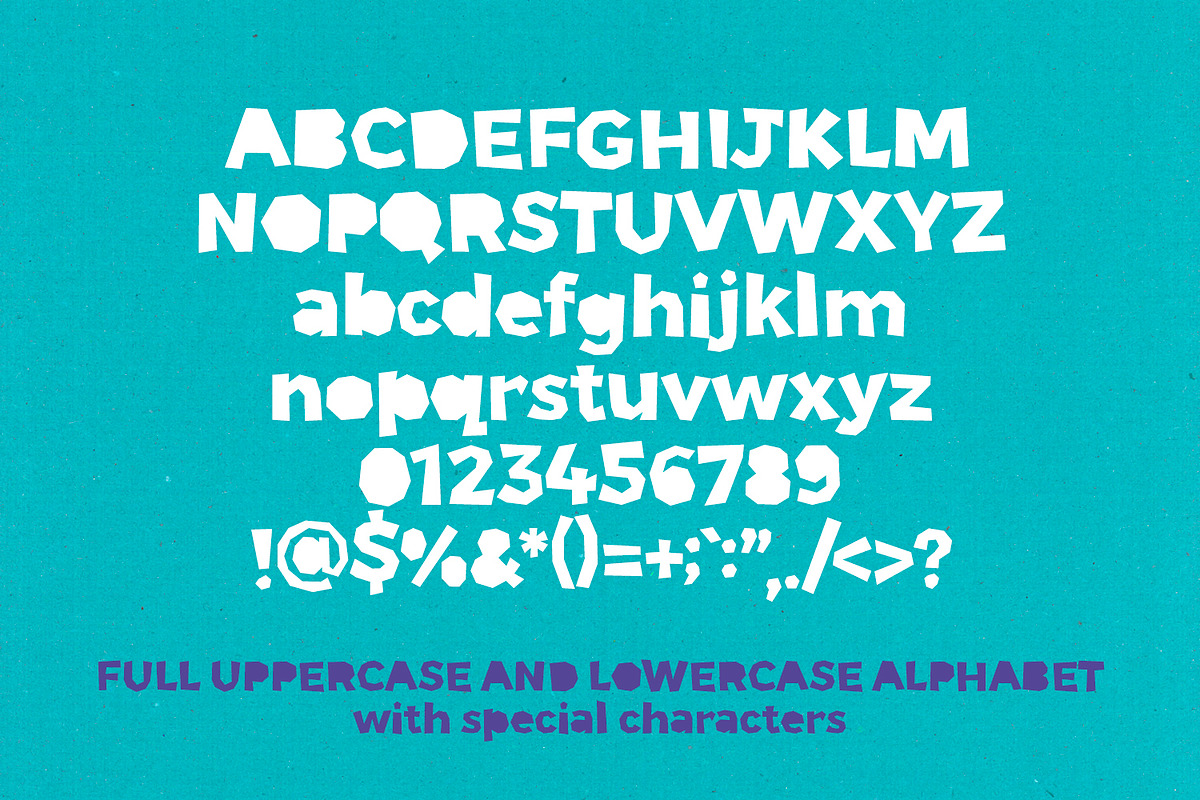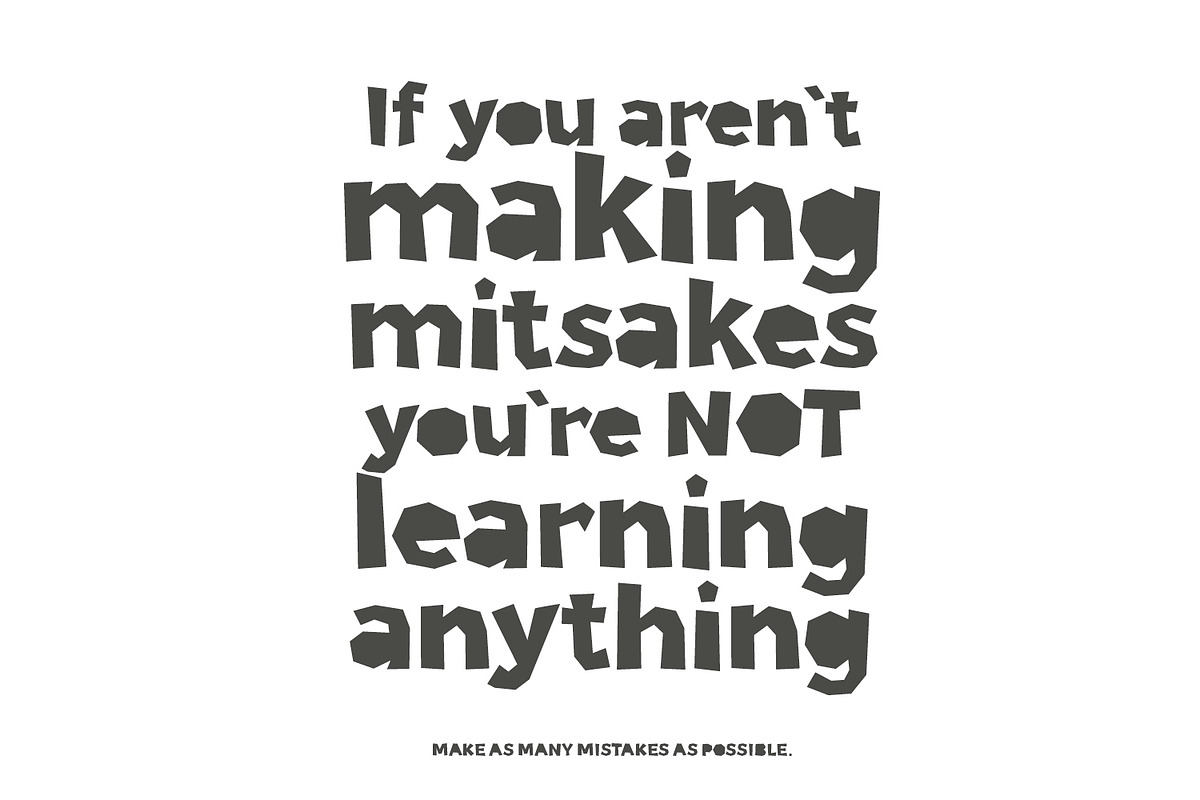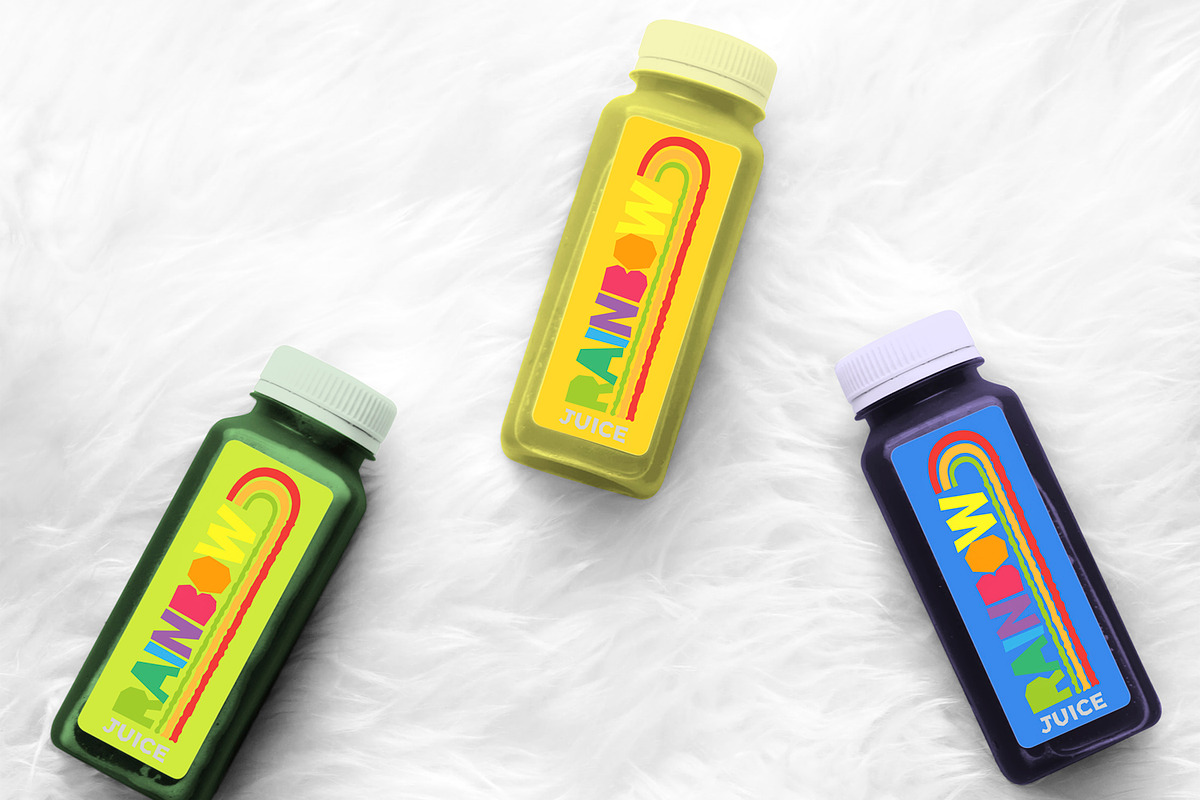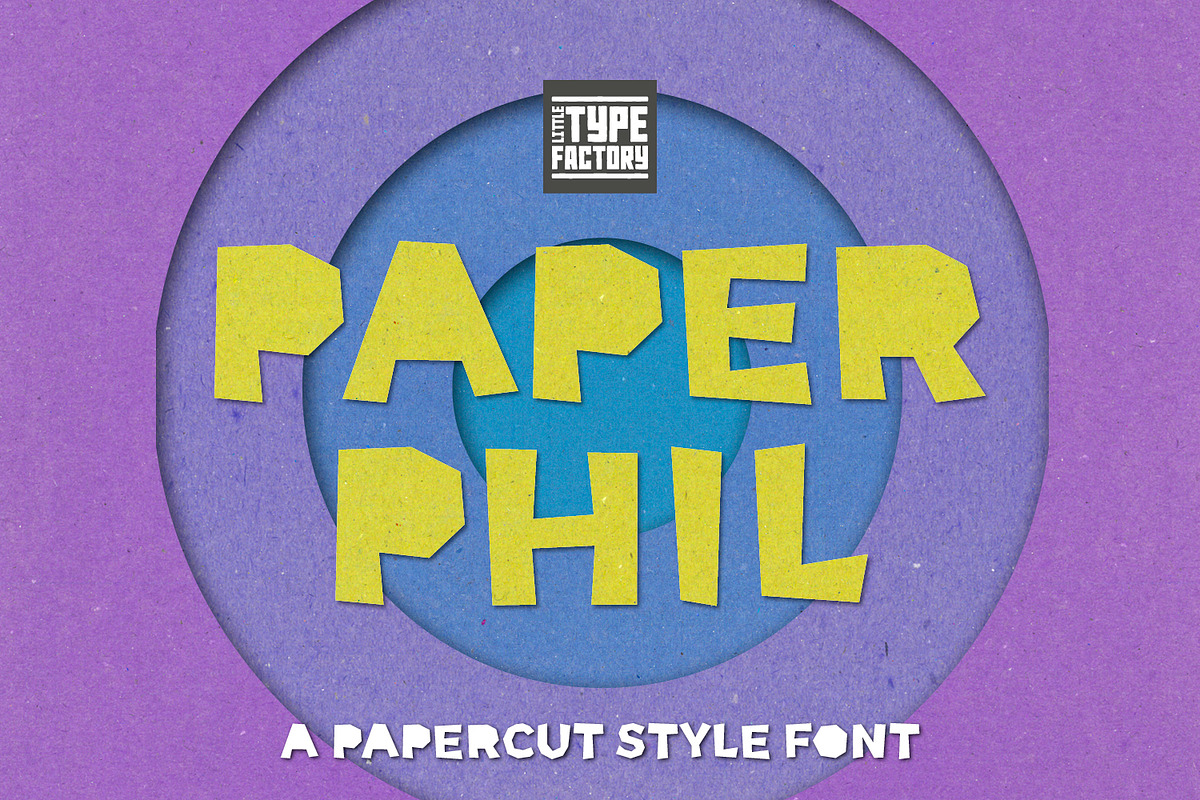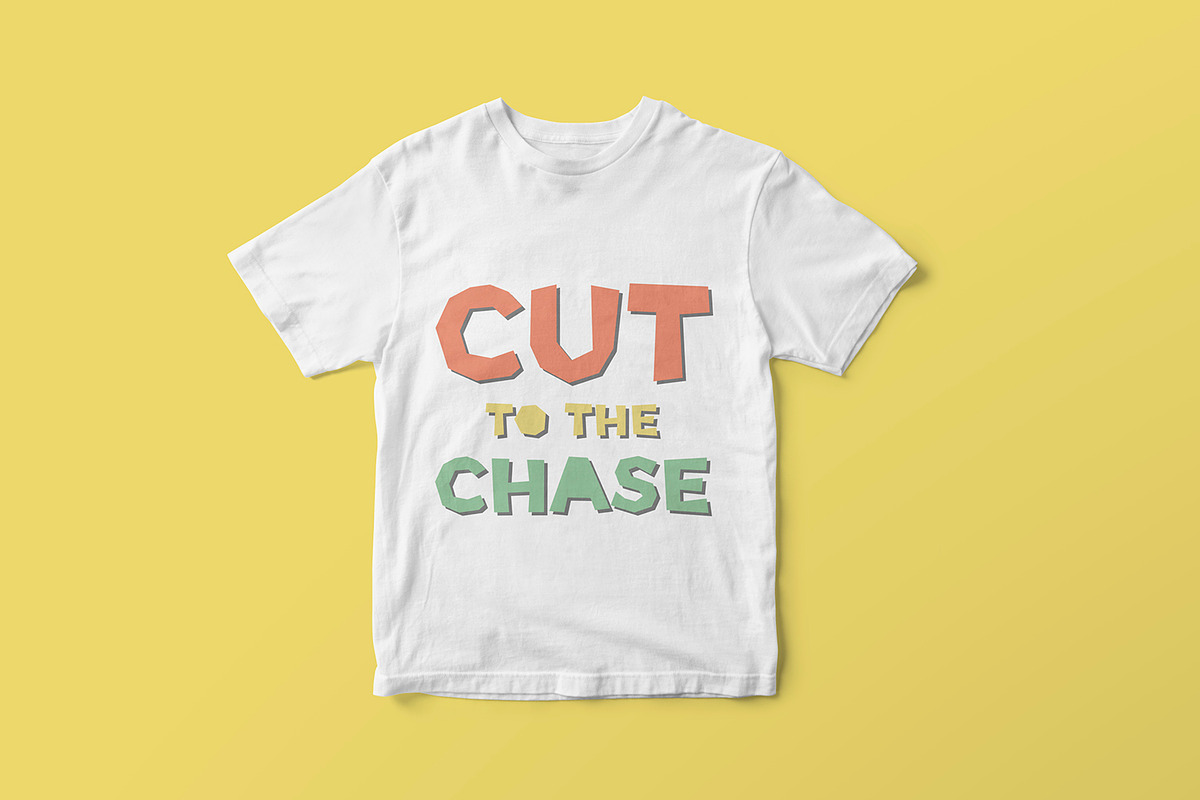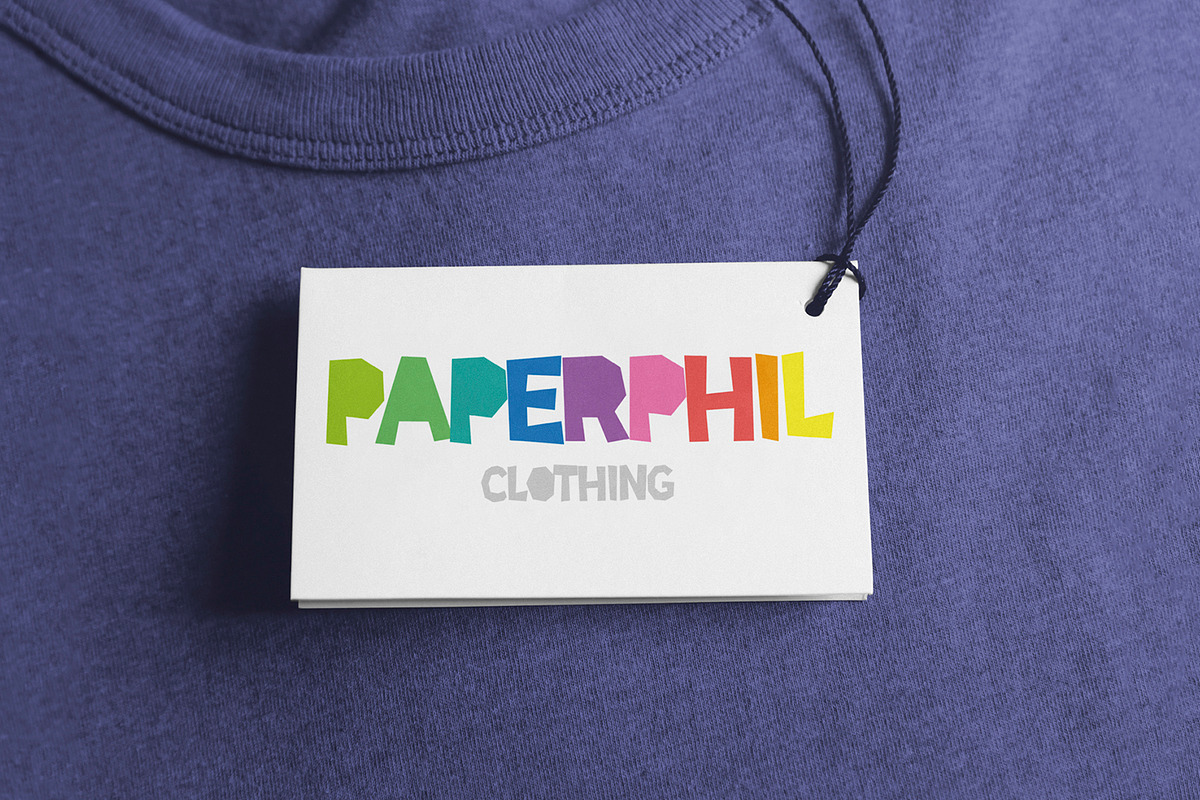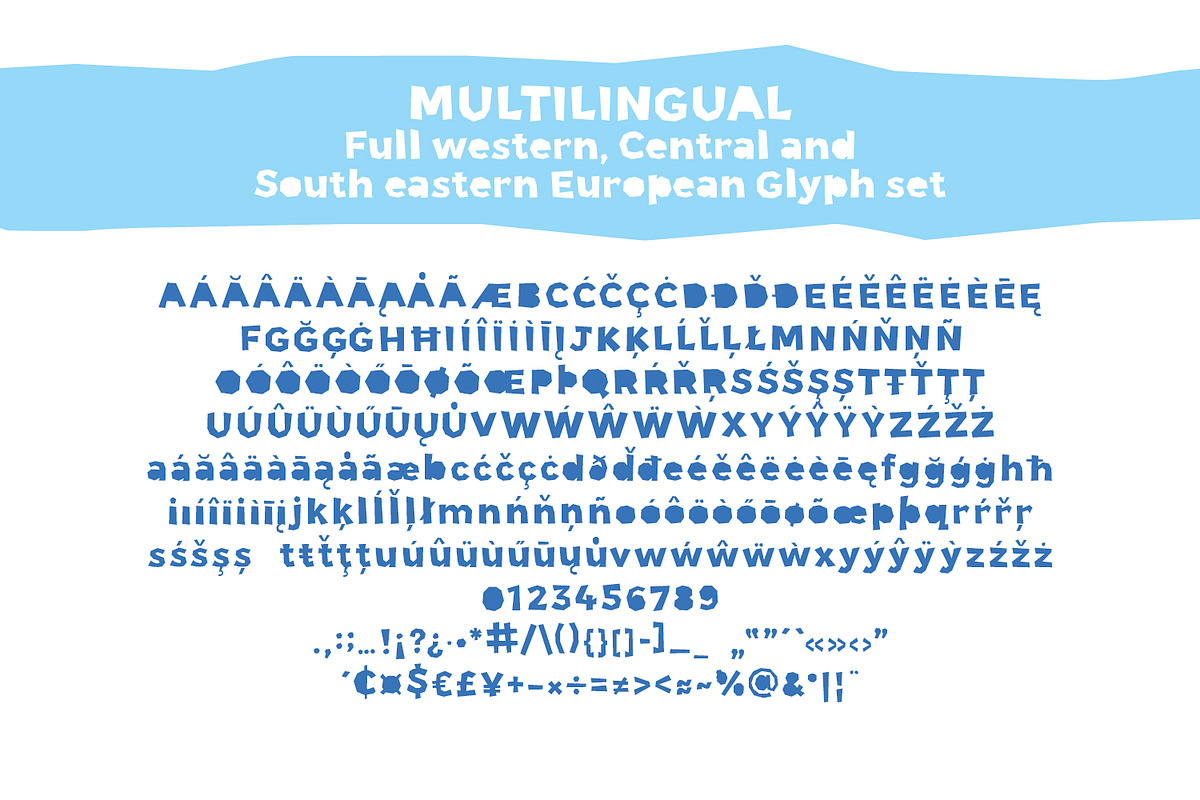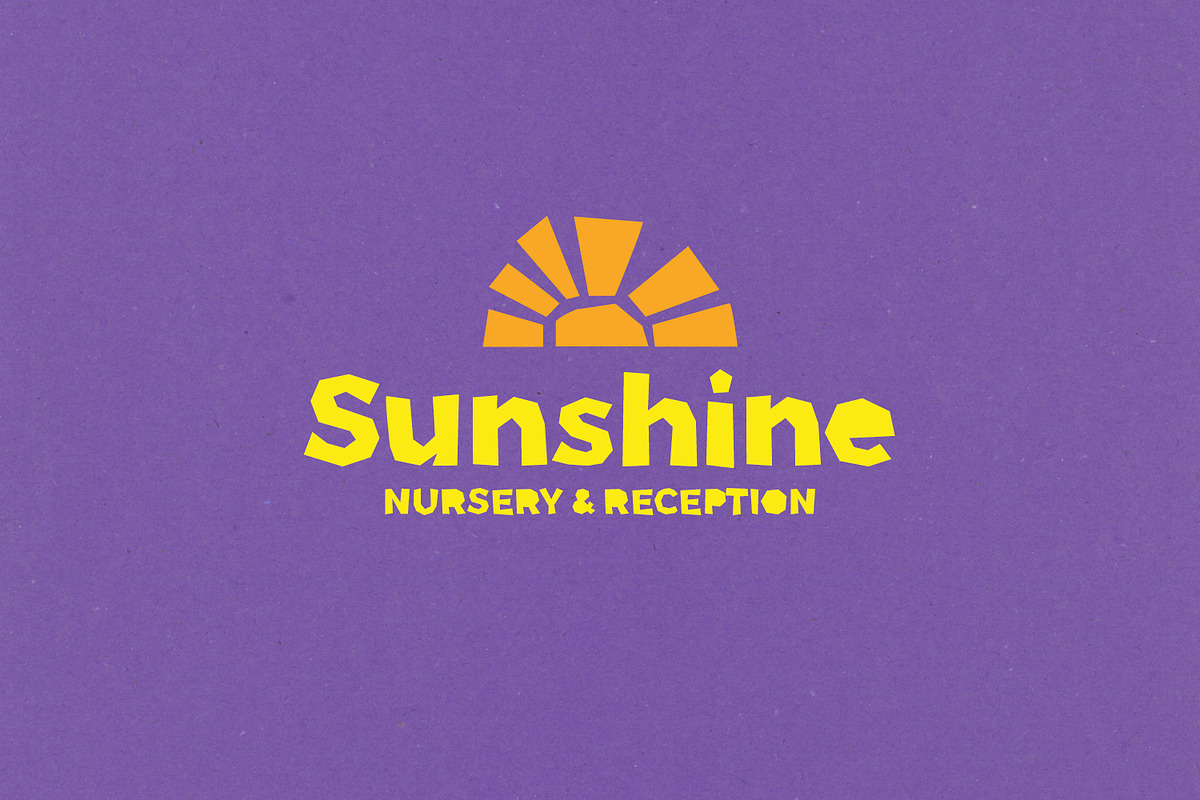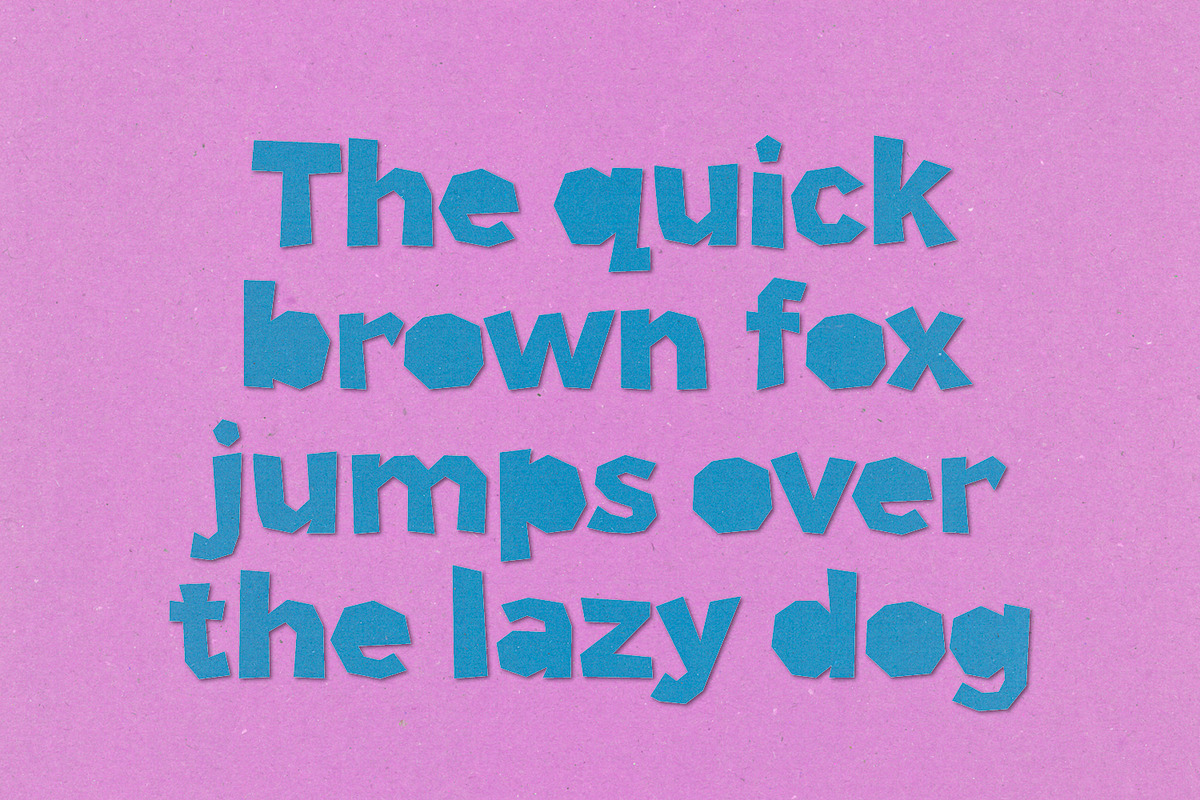
Paper Phil craft font +FREE TEXTURES
A fun and funky, bold font based on cut paper letterforms. Ideal for crafters and crafting or something a little playful. Can be used for all products and merchandising such as t-shirts, mugs and packaging. And great at injecting some energy in to any layout design, ideal as bold headings and titles or pull out text and quotes on posters and in editorial design, brochures, flyers, adverts etc...
An older brother to our Papier Couper font also available on this store. Preview images include our Paper/Card Texture Pack also available in our store.